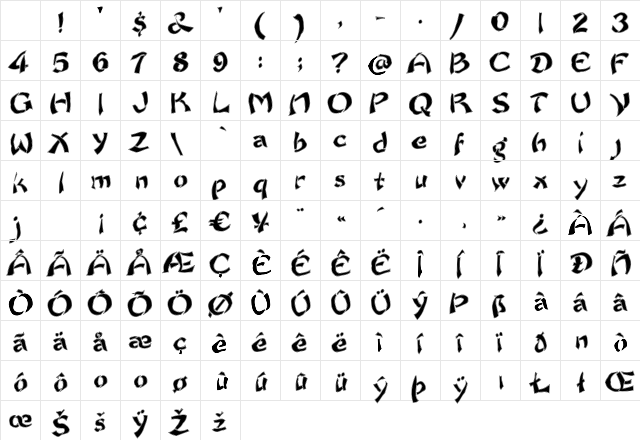
Complete LHF Crouching Tiger Regular glyph index. Displaying only characters natively supported by LHF Crouching Tiger Regular font.
LHF Crouching Tiger is a composed and adaptable typeface that performs quietly and consistently across a wide range of design contexts.